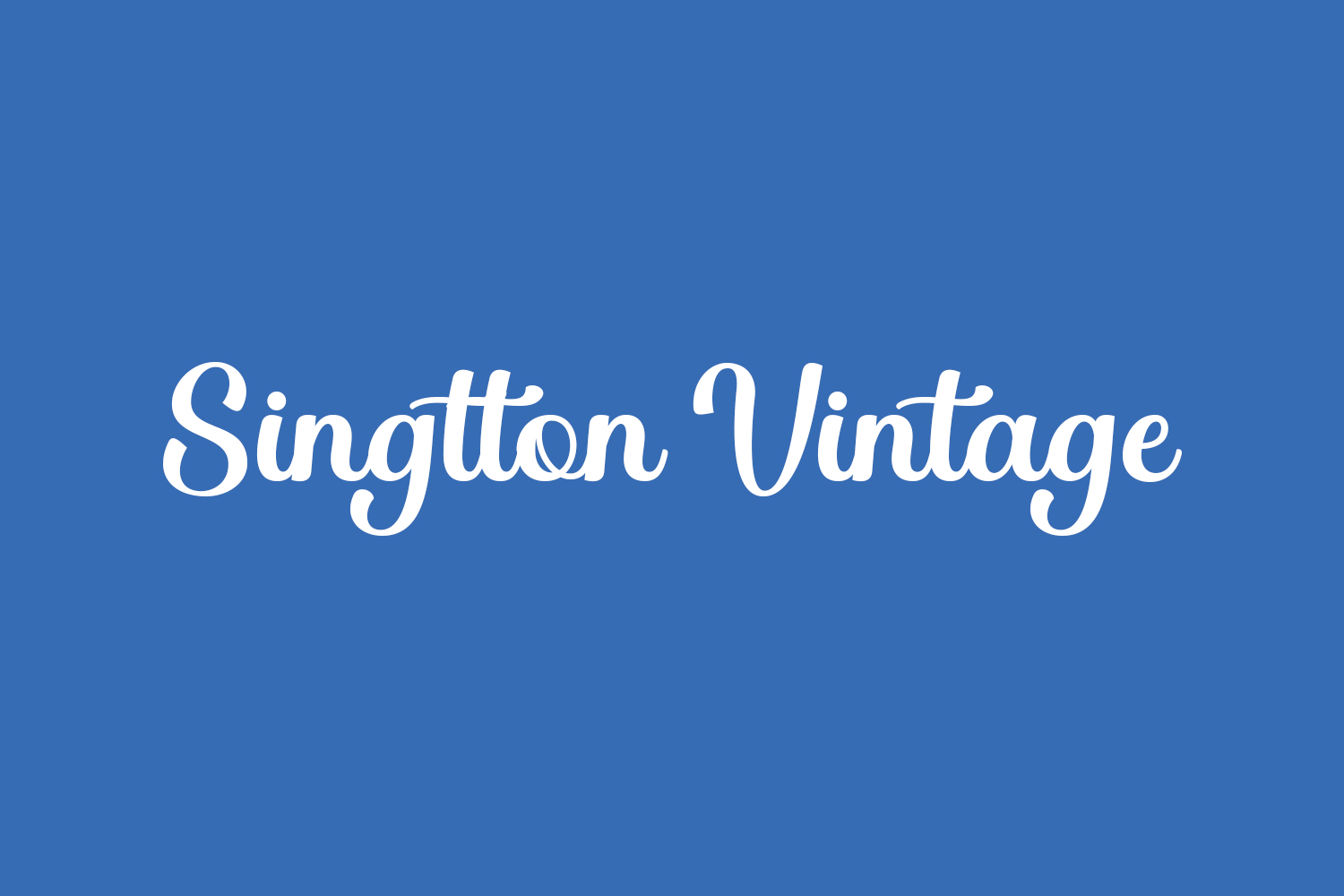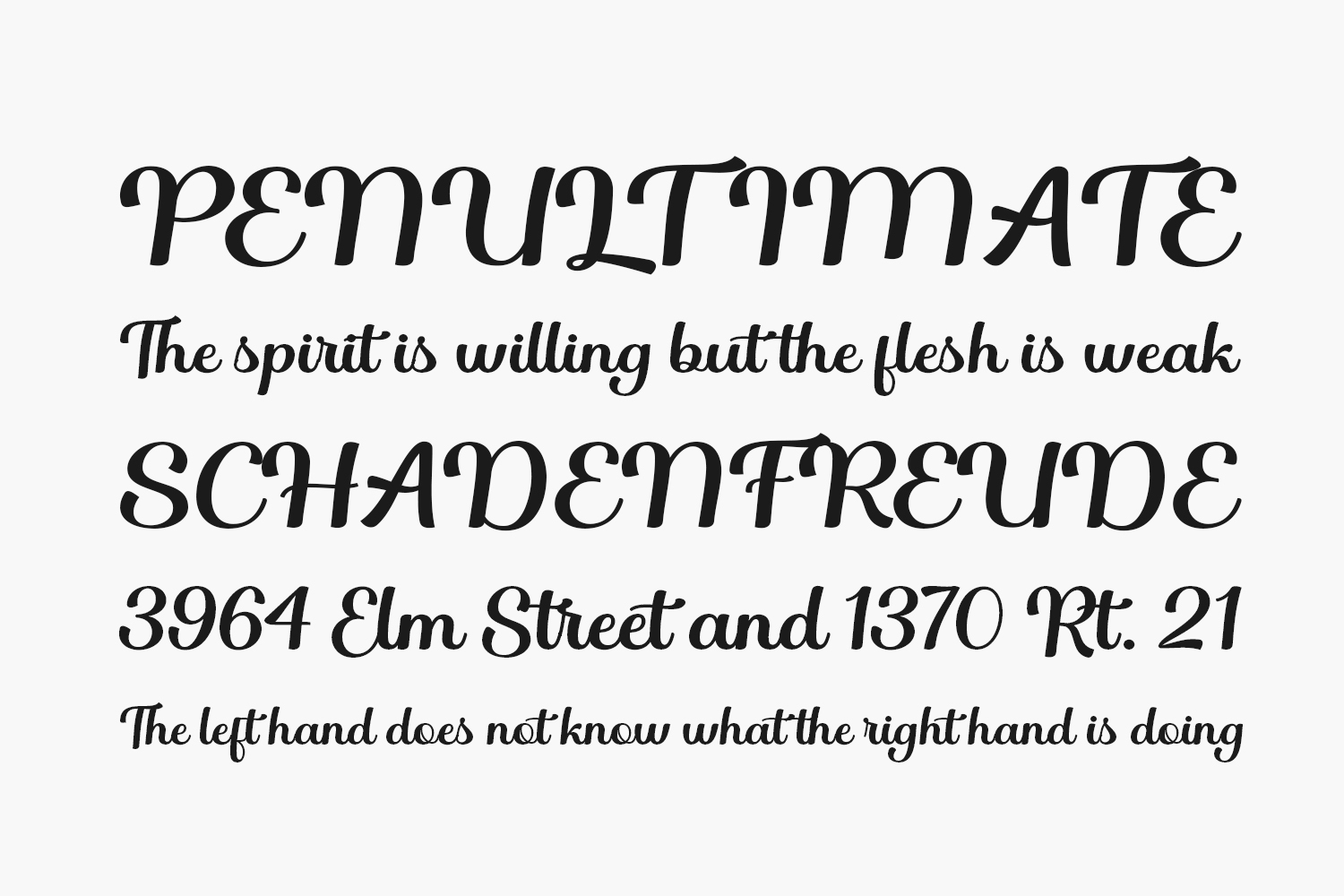
Introducing Singtton Vintage Free Font Family, a font that embodies charm and nostalgia. Derived from the term ‘Singtton Vintage’, symbolizing the epitome of cuteness, coolness, beauty, intelligence, and fun. Embrace your uniqueness with Singtton Vintage, a bold script font exuding retro vibes. Its plethora of alternatives and captivating ligatures make it a must-have for typography enthusiasts. Perfect for branding endeavors, Singtton Vintage adds a touch of confidence to logos and logotypes, ensuring your product stands out in the market effortlessly. Download the font for free if you need it for personal use or purchase the full version for commercial use.